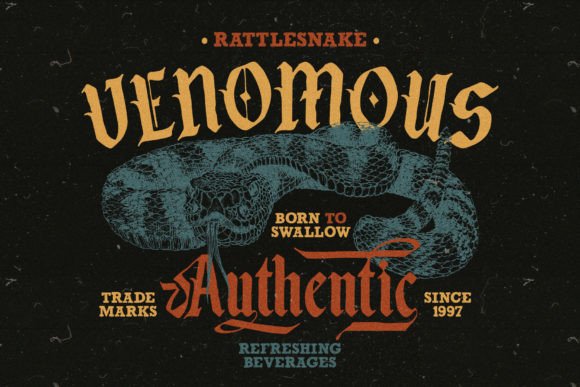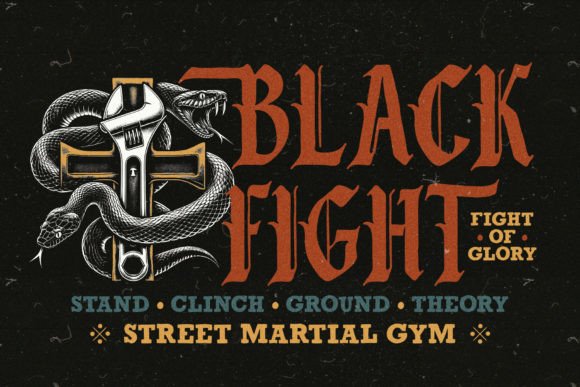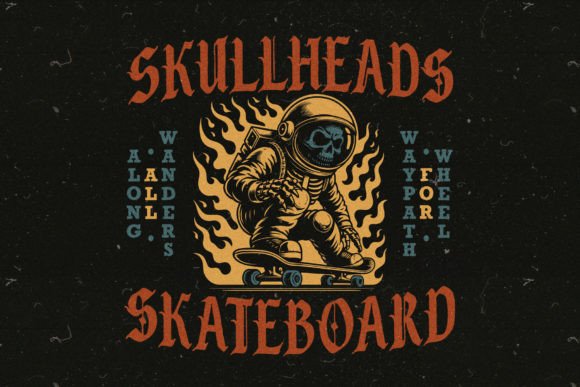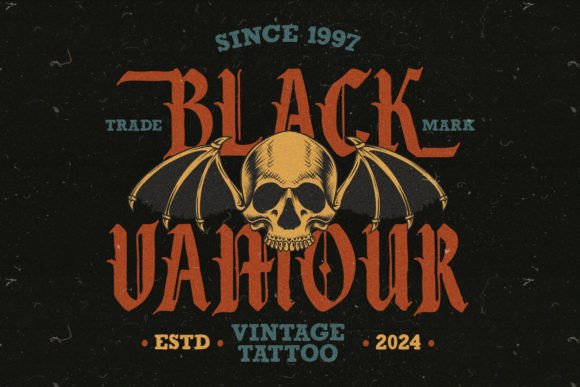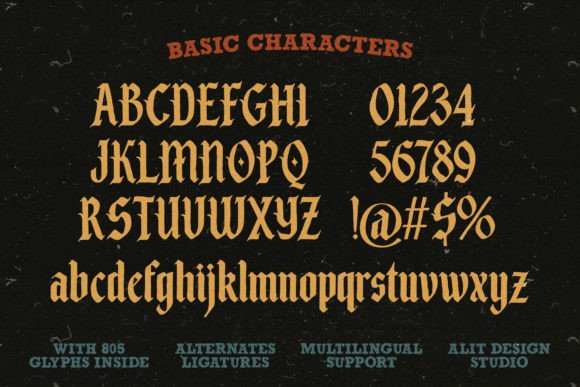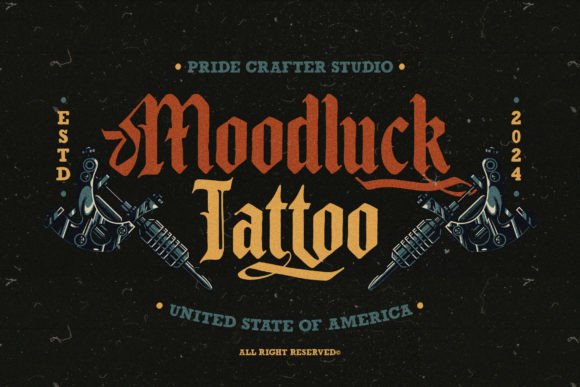
Introduction to Salt Black Combat Font
Salt Black Combat is a bold and rugged blackletter font that embodies the spirit of vintage craftsmanship.
Designed with a textured rough stamp effect, this font evokes a sense of history and power, perfect for projects that demand a strong, authentic aesthetic Whether youโre working on branding, posters, packaging, or apparel, Salt Black Combat delivers a striking impact.
Key Features of Salt Black Combat Font
Why Choose Salt Black Combat Font?
Salt Black Combat Font offers exceptional quality and versatility, making it a valuable addition to your design toolkit. Whether you’re creating for personal projects or commercial use, Salt Black Combat Font delivers professional results.